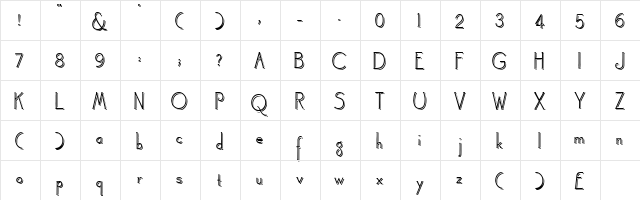
Landsdowne Shadowed Regular
| Designer | PJL |
Design Context for Landsdowne Shadowed Typeface
Landsdowne Shadowed is built around its visual character rather than neutral utility — its distinctive forms are designed to make an impression at display sizes.
Font Pairing: Pair with a clean neutral sans-serif for body copy to let Landsdowne Shadowed's character lead without overwhelming the composition.
Pro Tip: Use Landsdowne Shadowed exclusively at display sizes — it was designed to be seen, not read at length. Let a neutral companion handle body copy.